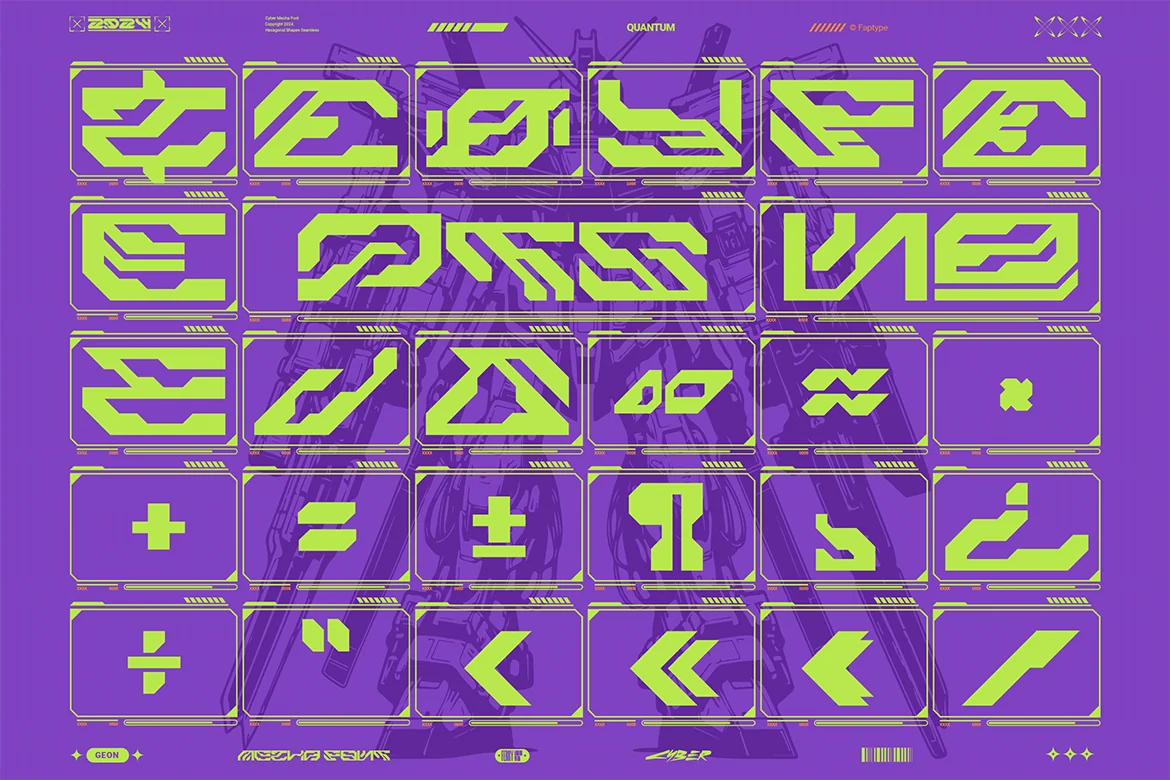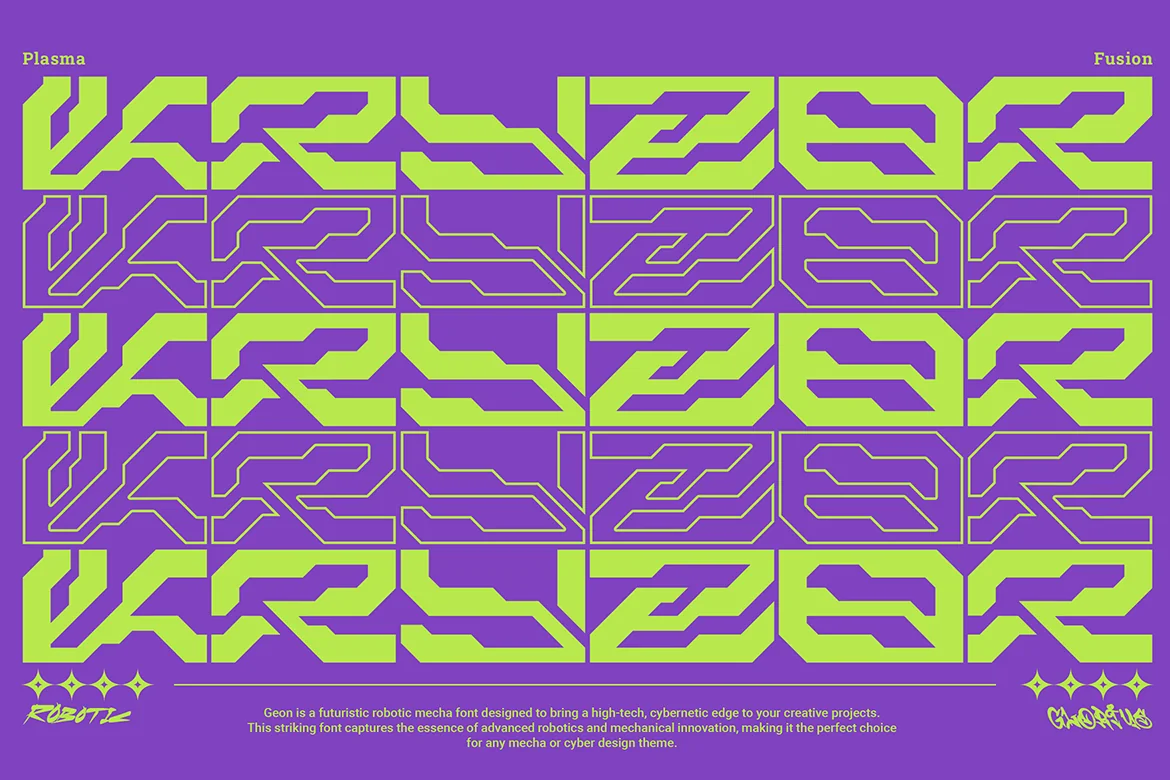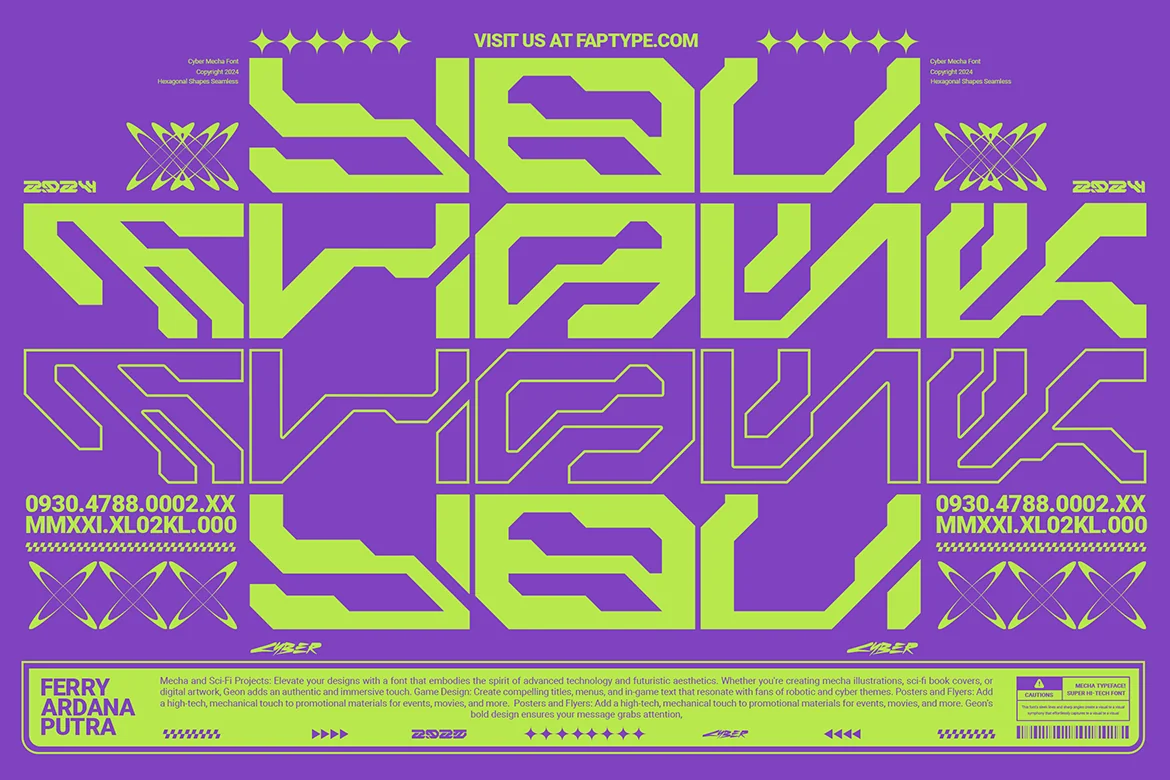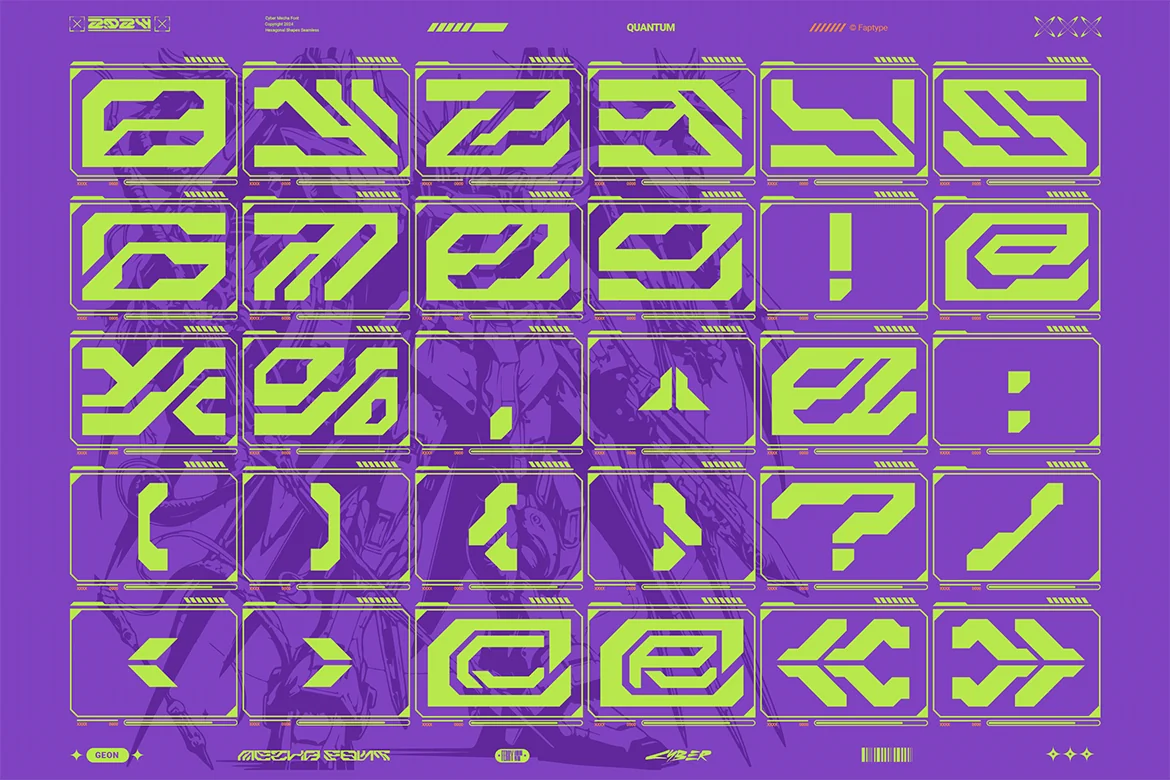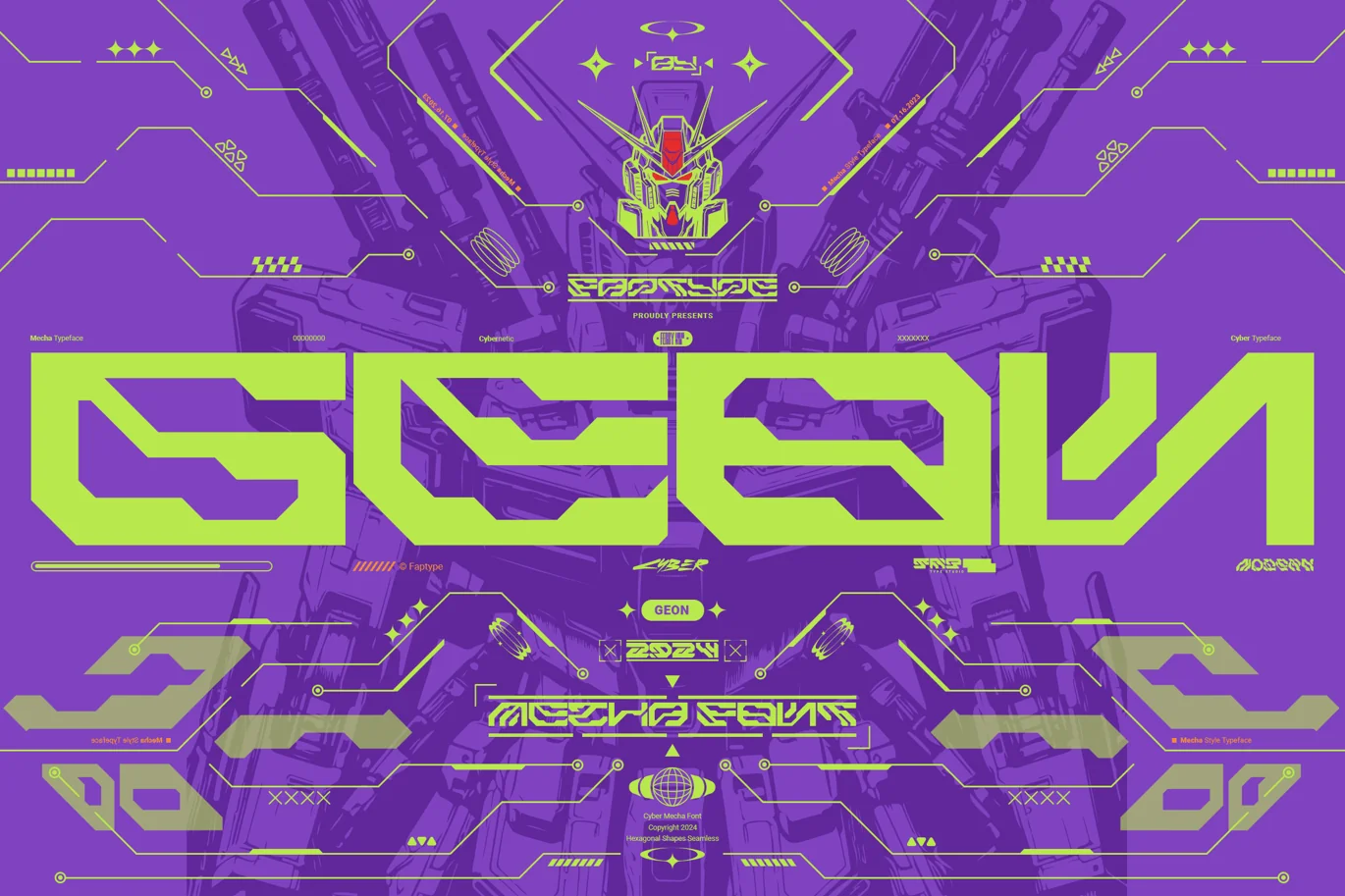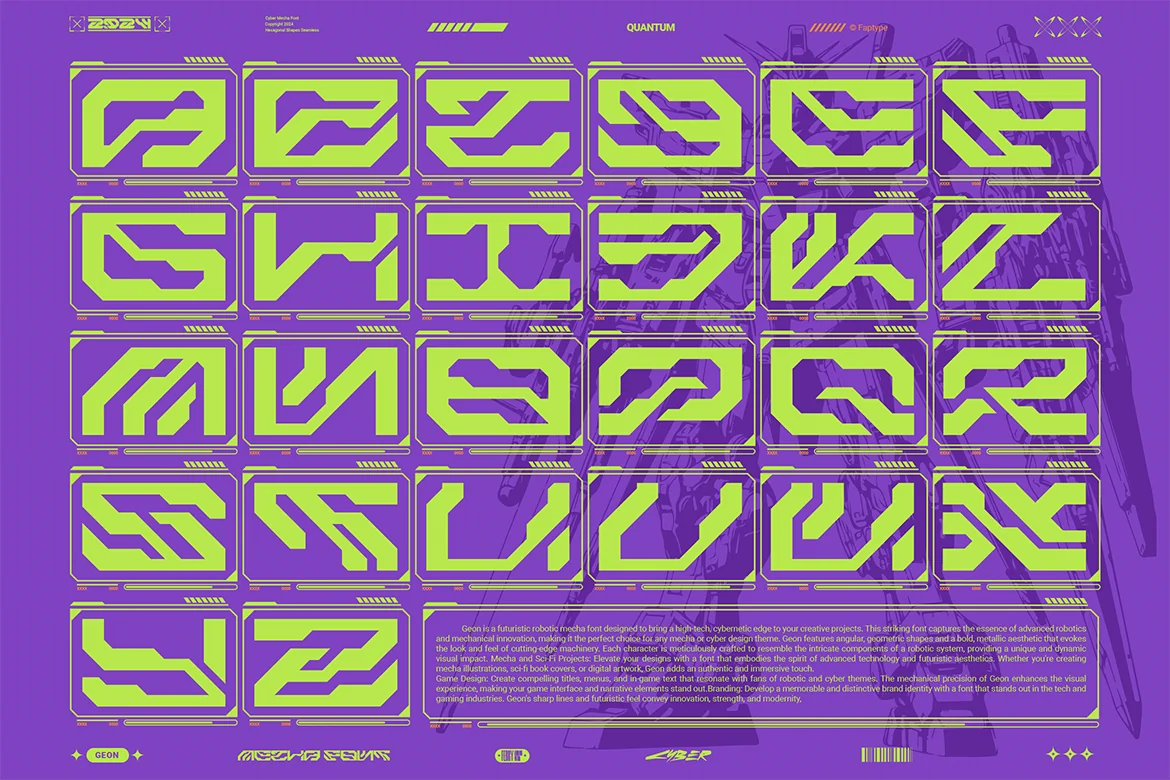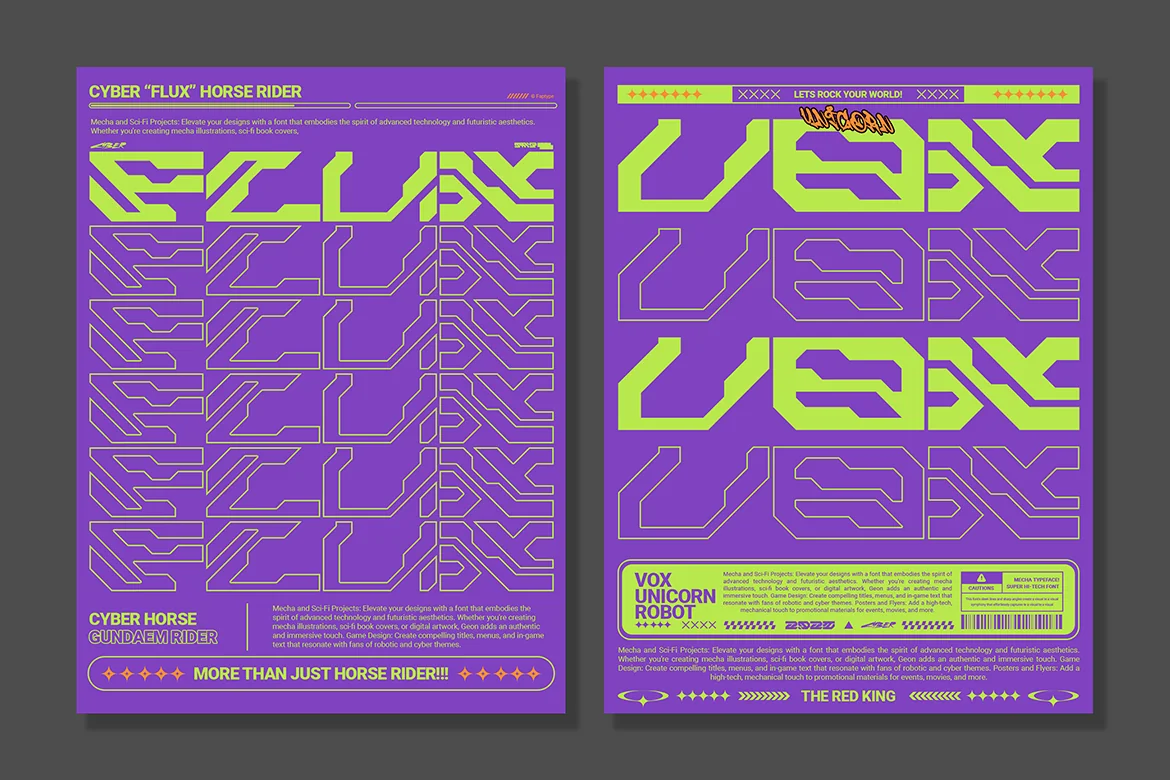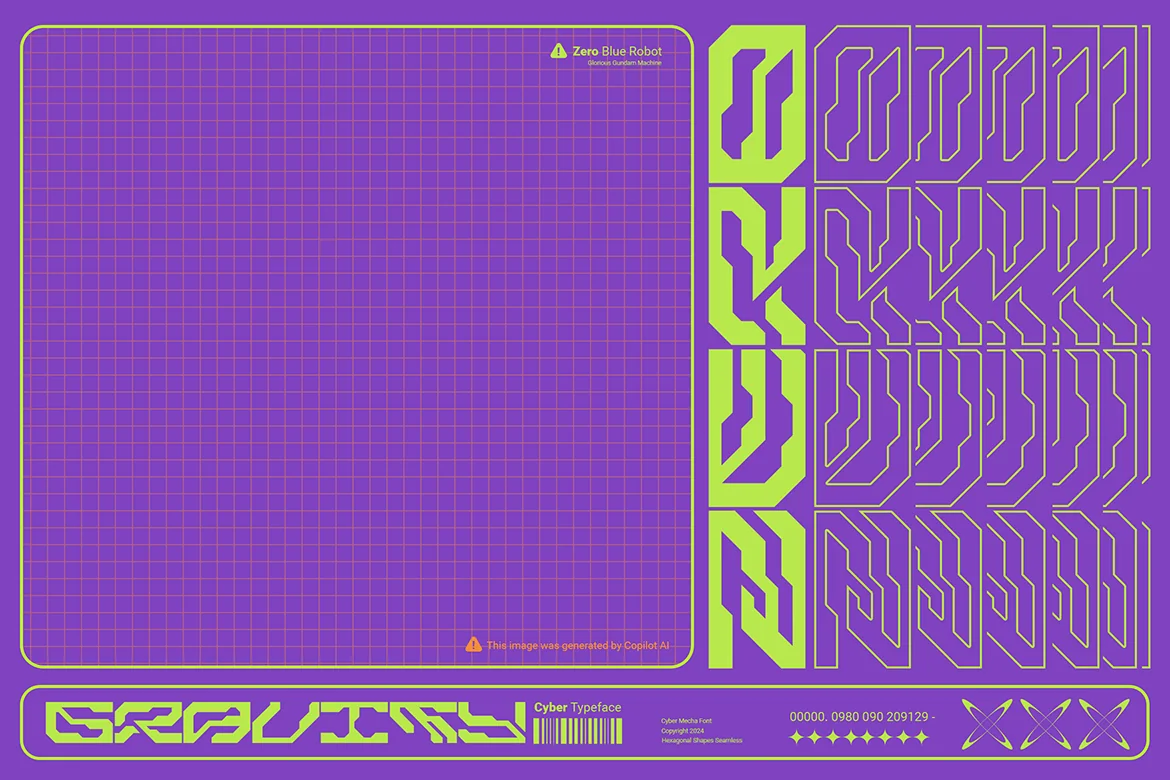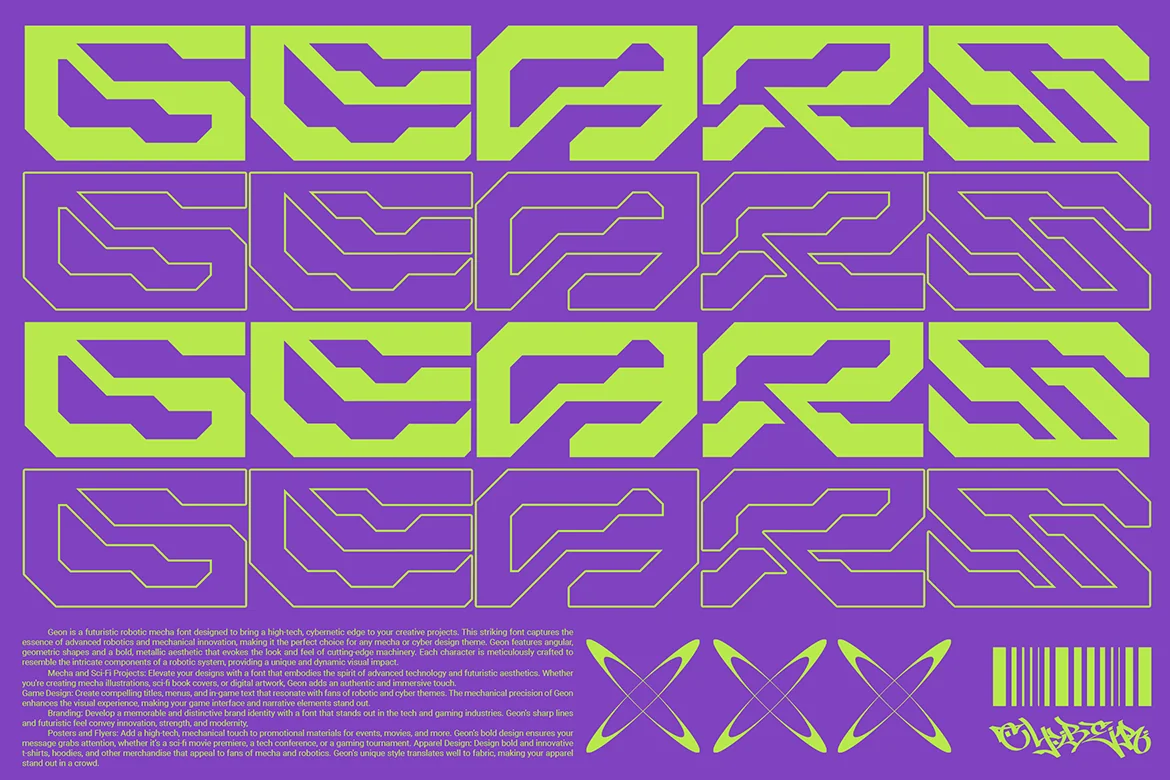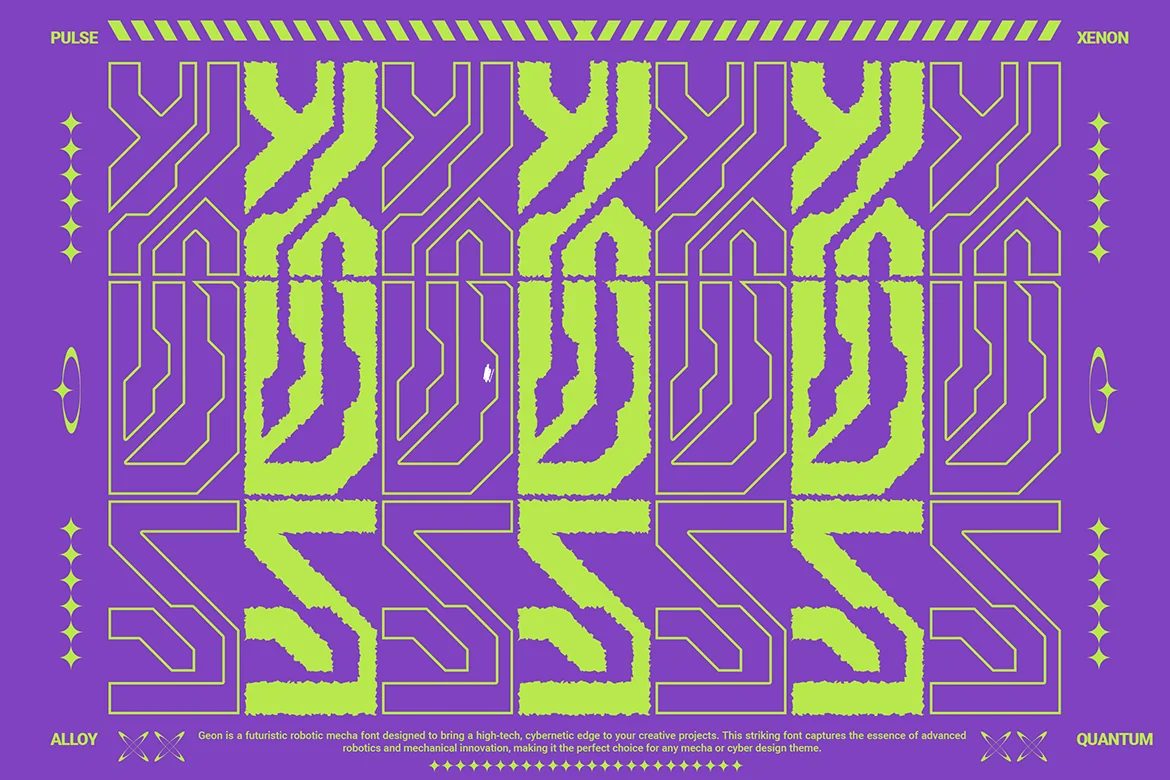
Geon | Futuristic Mecha Font Vol. 4
Geon is a futuristic mecha font designed to bring a high-tech, cybernetic edge to your creative projects. This striking font captures the essence of advanced robotics and mechanical innovation, making it the perfect choice for any mecha or cyber design theme.
Geon features angular, geometric shapes and a bold, metallic aesthetic that evokes the look and feel of cutting-edge machinery. Each character is meticulously crafted to resemble the intricate components of a robotic system, providing a unique and dynamic visual impact.
Geon’s design is inspired by the intricate and angular forms of robotic components, offering a unique aesthetic that stands out. Suitable for a wide range of projects from digital media to print, Geon adapts seamlessly to various contexts.
Perfect for:
Mecha and Sci-Fi Projects: Elevate your designs with a font that embodies the spirit of advanced technology and futuristic aesthetics. Whether you’re creating mecha illustrations, sci-fi book covers, or digital artwork, Geon adds an authentic and immersive touch.
Game Design: Create compelling titles, menus, and in-game text that resonate with fans of robotic and cyber themes. The mechanical precision of Geon enhances the visual experience, making your game interface and narrative elements stand out.
Branding: Develop a memorable and distinctive brand identity with a font that stands out in the tech and gaming industries. Geon’s sharp lines and futuristic feel convey innovation, strength, and modernity, making it ideal for tech startups, gaming companies, and robotics firms.
Posters and Flyers: Add a high-tech, mechanical touch to promotional materials for events, movies, and more. Geon’s bold design ensures your message grabs attention, whether it’s a sci-fi movie premiere, a tech conference, or a gaming tournament.
Apparel Design: Design bold and innovative t-shirts, hoodies, and other merchandise that appeal to fans of mecha and robotics. Geon’s unique style translates well to fabric, making your apparel stand out in a crowd.
Web Design: Enhance your website with a modern, cyber-inspired font that grabs attention and conveys a sense of futuristic sophistication. Perfect for tech blogs, e-commerce sites, and online portfolios, Geon adds a sleek and professional look.
High-Tech Appeal: Perfect for tech enthusiasts, gamers, and sci-fi fans, this font captures the essence of futuristic design.
Detailed Craftsmanship: Each character in Geon is carefully designed to maintain consistency and readability while showcasing a high level of detail.
Embrace the power and precision of advanced robotics with Geon, the ultimate font for mecha and cyber-themed designs. Whether you’re working on a high-stakes game, a cutting-edge tech brand, or any project that demands a futuristic touch, Geon delivers the perfect combination of strength, style, and innovation. Transform your creative vision into reality with Geon, and make a bold statement in the world of design.
Geon features:
A full set of uppercase
Numbers and punctuation
Multilingual language support
PUA Encoded Characters
OpenType Features
Cyber Mecha Style
+293 Total Glyphs